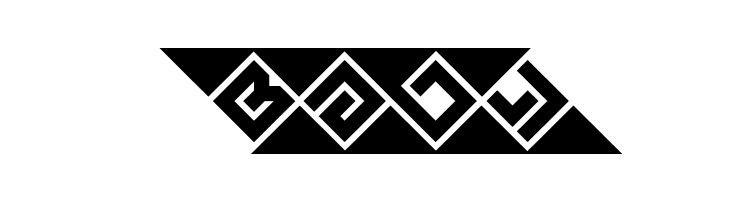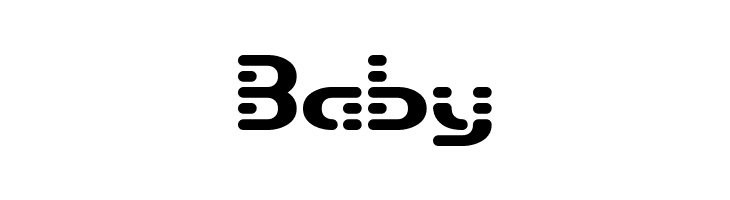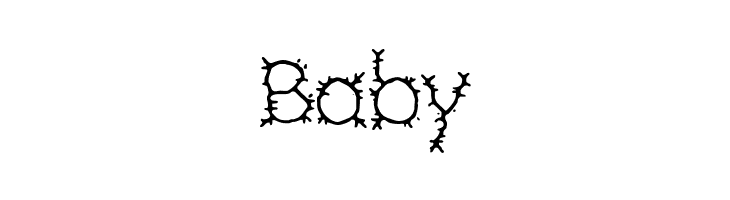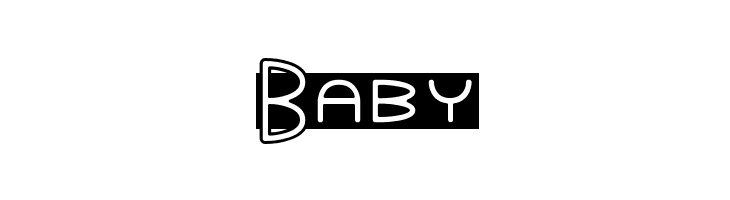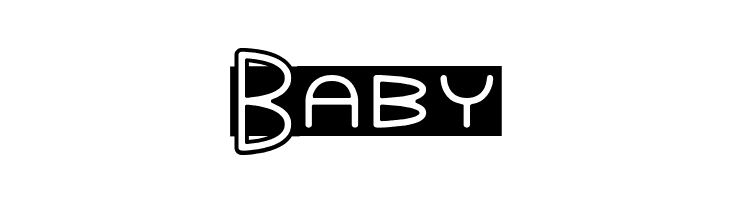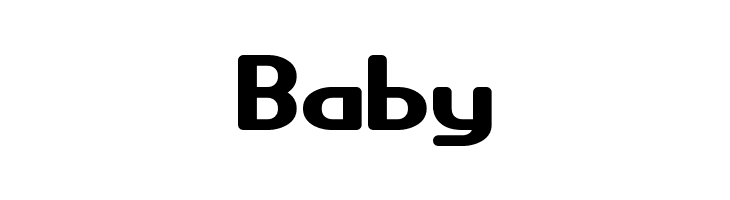
A bold, rounded, and modern font with a playful and approachable style.
A bold, segmented font with a futuristic and digital aesthetic.
A geometric, diamond-enclosed font with bold, angular lines.
A bold, decorative font with thorn-like embellishments and a gothic style.
A bold, playful font with outlined characters and a unique, eye-catching style.